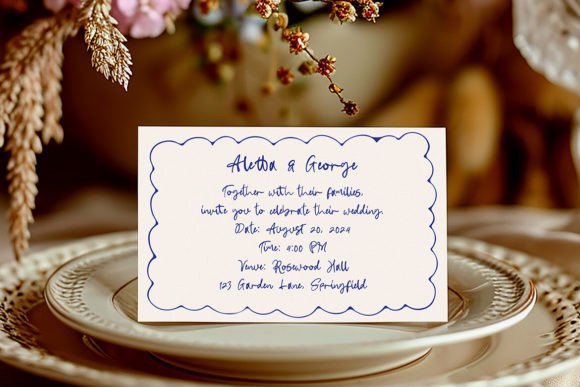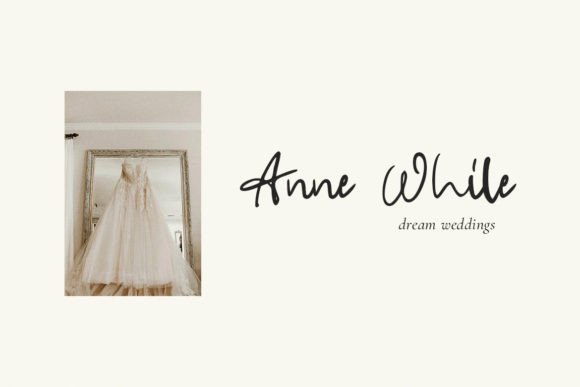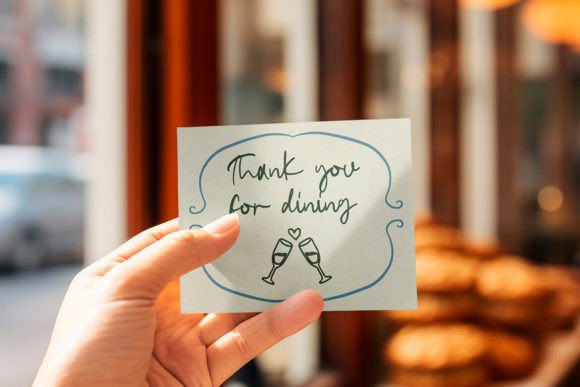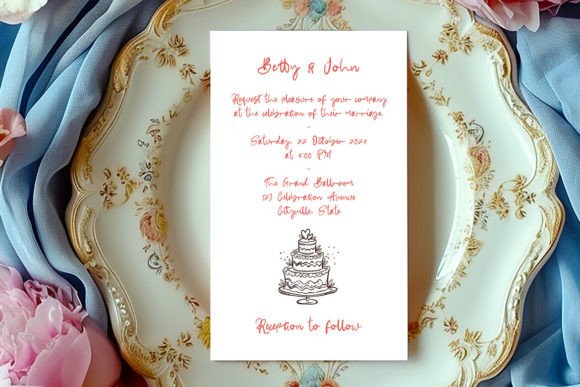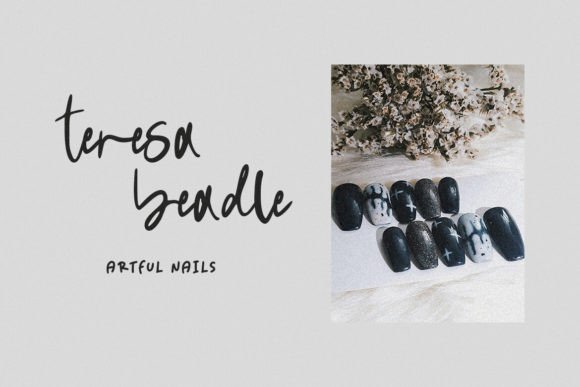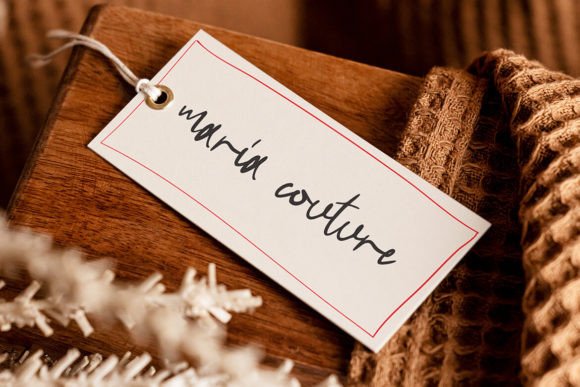
Adding a Personal Touch with Bailett Hand Font
You know that moment when you’re brainstorming ideas for a project and you stumble upon the perfect font to capture the essence of your vision? For me, it’s when I’m designing a wedding invitation and I want it to feel like a heartfelt letter from the couple to their loved ones. That’s where Bailett Hand Font comes in – a quirky handwritten script font that brings a natural, unpolished look to your designs.
This unique font is perfect for projects that need a personal and authentic touch. Each character is uniquely hand-drawn, adding a raw and genuine feel to your designs. Whether you’re creating wedding invitations, quotes, social media posts, or any other project that requires a personal touch, Bailett Hand Font is an excellent choice.
- Unique Characteristics: Bailett Hand Font features a unique, handwritten style with a mix of cursive and script elements, making it ideal for creative projects and designs that require a personal touch.
Designer Review: Bailett Hand Font
As a designer, I’m always on the lookout for fonts that capture a unique personality and add character to my projects. The Bailett Hand Font is a beautiful, elegant script font that delivers in many ways. ✨ Here are some of its strengths:
- Beautifully handwritten feel: The Bailett Hand Font has a warm, organic feel that’s reminiscent of handwritten notes and adds a touch of personality to any design.
- Highly customizable: The font comes in a range of weights and styles, making it easy to tailor the look to suit your design needs.
- Professional-grade: Despite its hand-drawn feel, the Bailett Hand Font is highly legible and suitable for use in professional contexts.
However, like any font, the Bailett Hand Font has its limitations. ⚠️ Some of these include:
- Limited support for small text sizes: At small sizes, the font can become difficult to read, so be sure to test it carefully in your design.
- Potential for inconsistent spacing: Depending on the specific use case, the font’s spacing can become inconsistent, which can detract from the overall look.
Overall, the Bailett Hand Font is a beautiful, high-quality script font that’s perfect for designers looking to add a touch of elegance and personality to their projects. While it has some limitations, these are largely outweighed by its many strengths, making it a solid choice for any designer looking to add a bit of flair to their work.
Bailett Hand Font is ideal for creating elegant and sophisticated designs. Use it for:
– Luxury brand logos and marketing materials
– High-end product packaging and labels
– Artistic and creative projects
– Tips: Experiment with different font sizes and colors to achieve a unique look. Use Bailett Hand Font in combination with other fonts to create visual interest.
Q: Can I customize the Bailett Hand Font to fit my specific design needs?
Yes, you can customize the Bailett Hand Font to fit your specific design needs. The font includes a range of OpenType features, such as ligatures, swashes, and stylistic sets, which can be accessed through your design software. You can also experiment with font pairing, size, and color to create